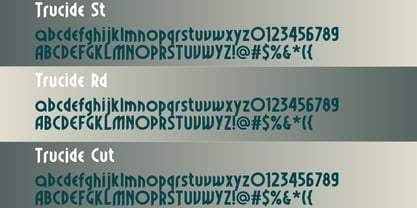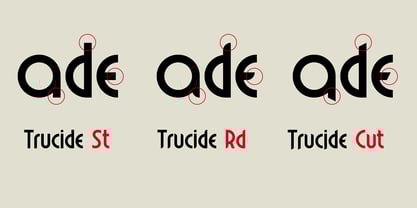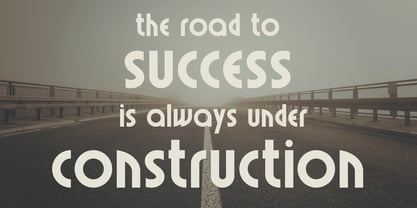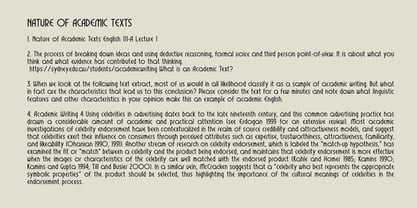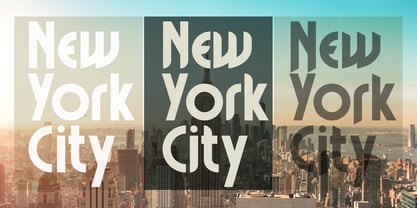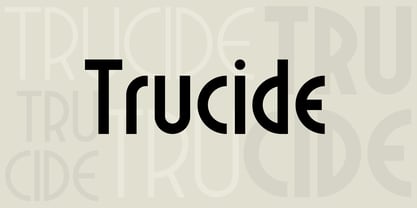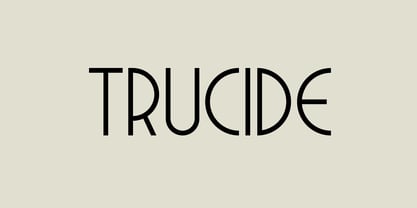
Trucide
by VladB
The Trucide Font Family was designed by Volodymyr Berla and published by VladB. Trucide contains 12 styles and family package options.
Trucide is a contemporary narrow sans serif geometric font that features both upper and lower case characters, supporting Latin, Cyrillic, Latin Eastern Europe, Turkish, Baltic, and more. The Trucide family comprises 12 distinct fonts, organized into 3 subgroups based on style (St, Rg, Cut), each offering 4 thickness variations. These versatile fonts are ideal for brand development, poster creation, and various graphic design projects, as well as for word processing tasks.
My name is Volodymyr. I have been developing logos and brand elements since 2013. In the process of work, I constantly deal with various fonts, so I gradually came to the decision to independently develop the fonts that I need in my work. Thus, I have developed and continue to develop my collection of fonts. I've been developing fonts since 2019. Currently I design mostly modern and technical typefaces.